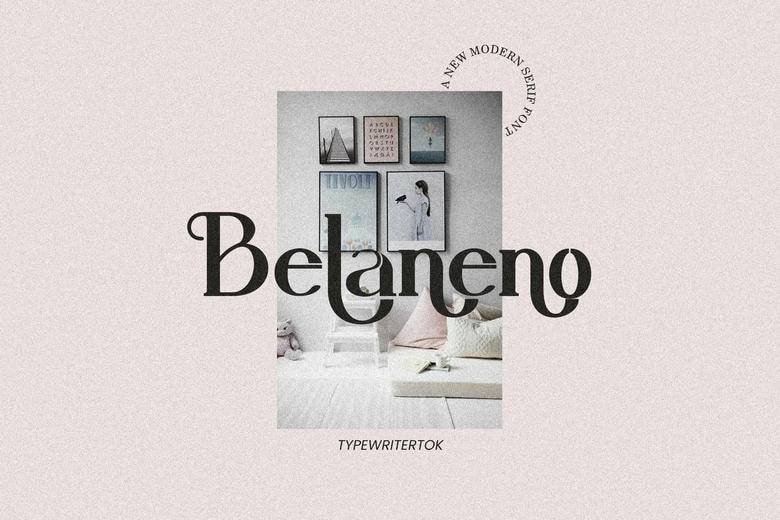
Belaneno Font
Belaneno is a modern serif font that brings a touch of elegance and sophistication to any project. Its clean lines and balanced look make it ideal for luxury branding, editorials, packaging, fashion magazines, invitations, and corporate identities.
Betaneno features smooth curves, stylish ligatures, and bold contrasts. It is well-suited for luxury branding, editorial design, logos, fashion magazines, packaging, and wedding invitations.
This typeface blends classic style with modern trends, making it a great option for designers looking for something both timeless and fresh.